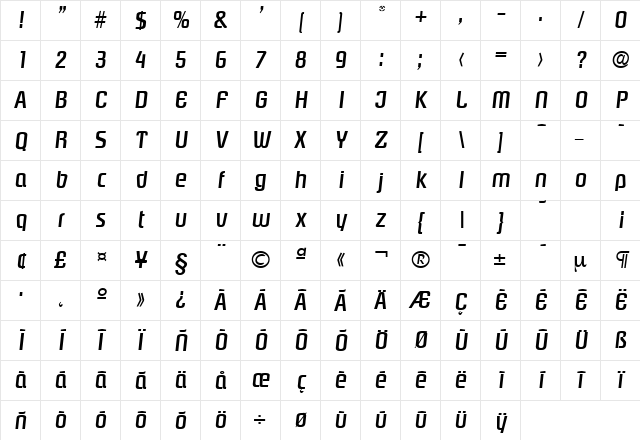
Pasadena-Serial-Medium RegularItalic
Style: RegularItalic
Pasadena-Serial-Medium Family
Complete Pasadena-Serial-Medium RegularItalic glyph index. Displaying only characters natively supported by Pasadena-Serial-Medium RegularItalic font.
Design Context for Pasadena-Serial-Medium
Pasadena-Serial-Medium is a composed and adaptable typeface that performs quietly and consistently across a wide range of design contexts. The slanted form adds forward momentum and visual energy.
Pro Tip: Use Pasadena-Serial-Medium for emphasis, pull quotes, and subheadings where its slanted energy can add rhythm to the layout.